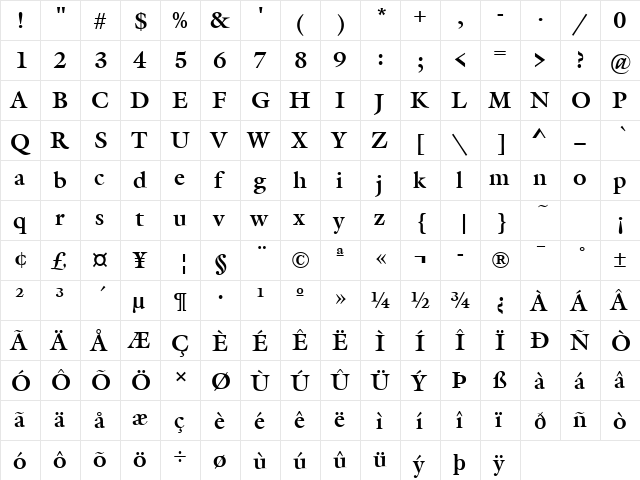
Gareth Bold
Design Context for Gareth Typeface
Gareth offers clean, dependable letterforms without strong stylistic allegiance, making it a practical choice for designers who need flexibility. Its bold stroke weight gives it real presence on the page.